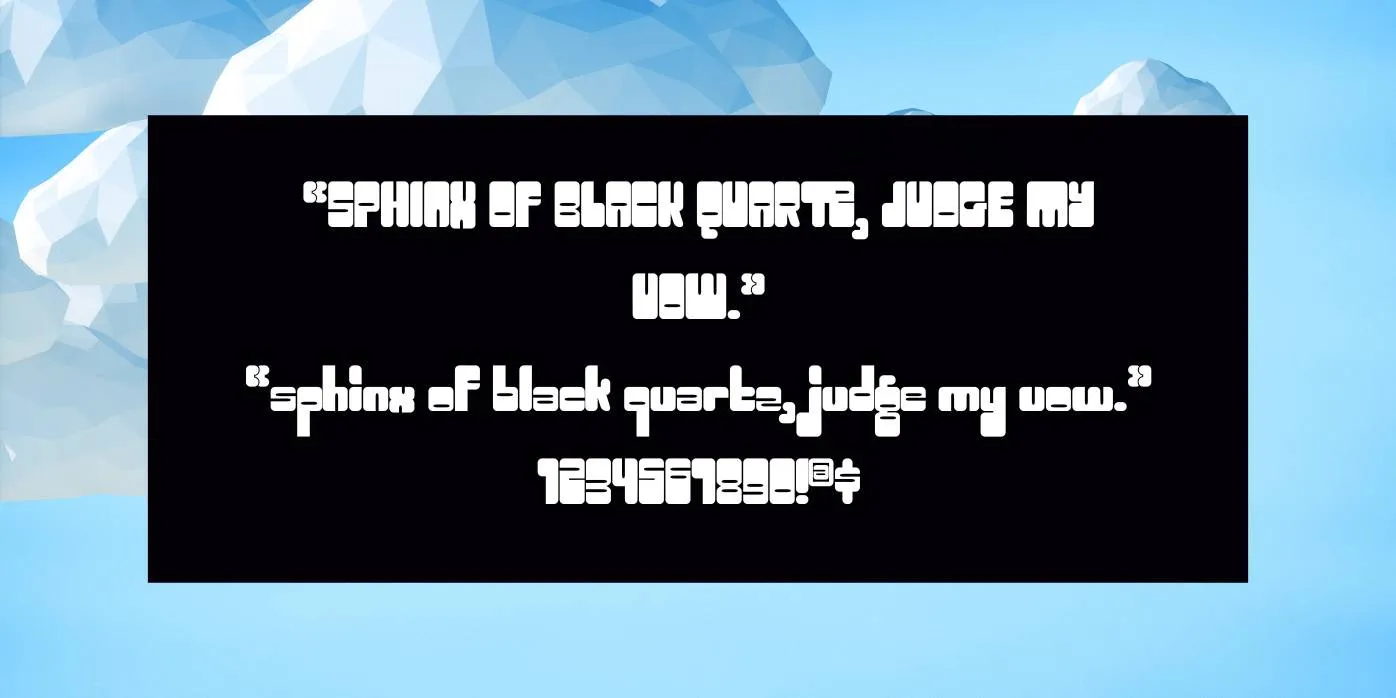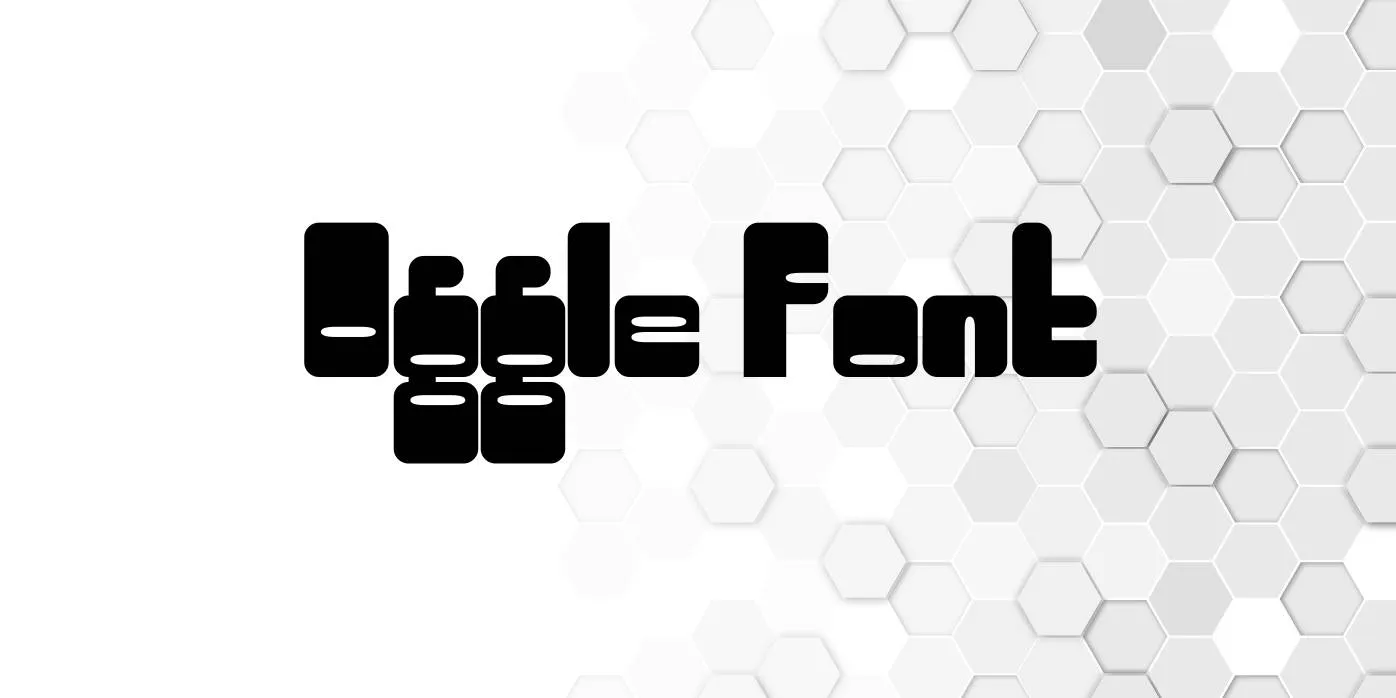
Oggle Font
We are going to write about the famous fancy font. Oggle Font is a fantastic font. This stunning texture is a fancy type of font. Fontalicious is the designer of this typeface.
There are 3 unique styles for this typeface. They are the Regular, Woggle, and Toggle. The glyphs for this typeface are fantastic. They are 256 in number.
This texture has fantastic visual effects in graphic design.